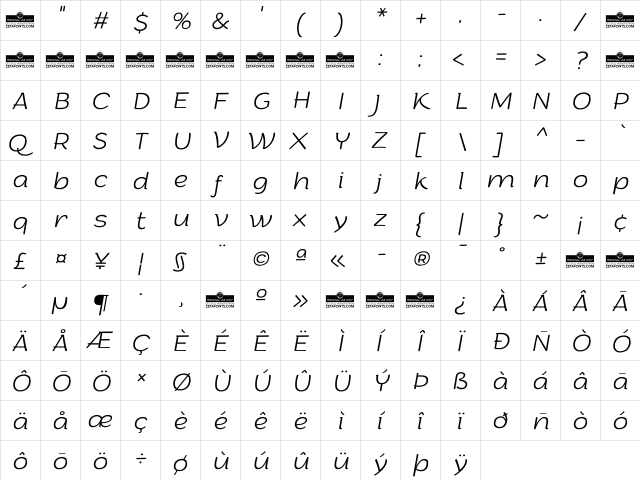
Arturo Trial ExtraLight Italic Font Preview
Design Context for Arturo Trial Typeface
Arturo Trial offers clean, dependable letterforms without strong stylistic allegiance, making it a practical choice for designers who need flexibility. The slanted form adds forward momentum and visual energy. Its slender proportions lend an understated elegance to any composition.
Pro Tip: Try Arturo Trial for annotation and caption copy alongside an upright companion — the contrast in angle creates a dynamic but ordered typographic system.